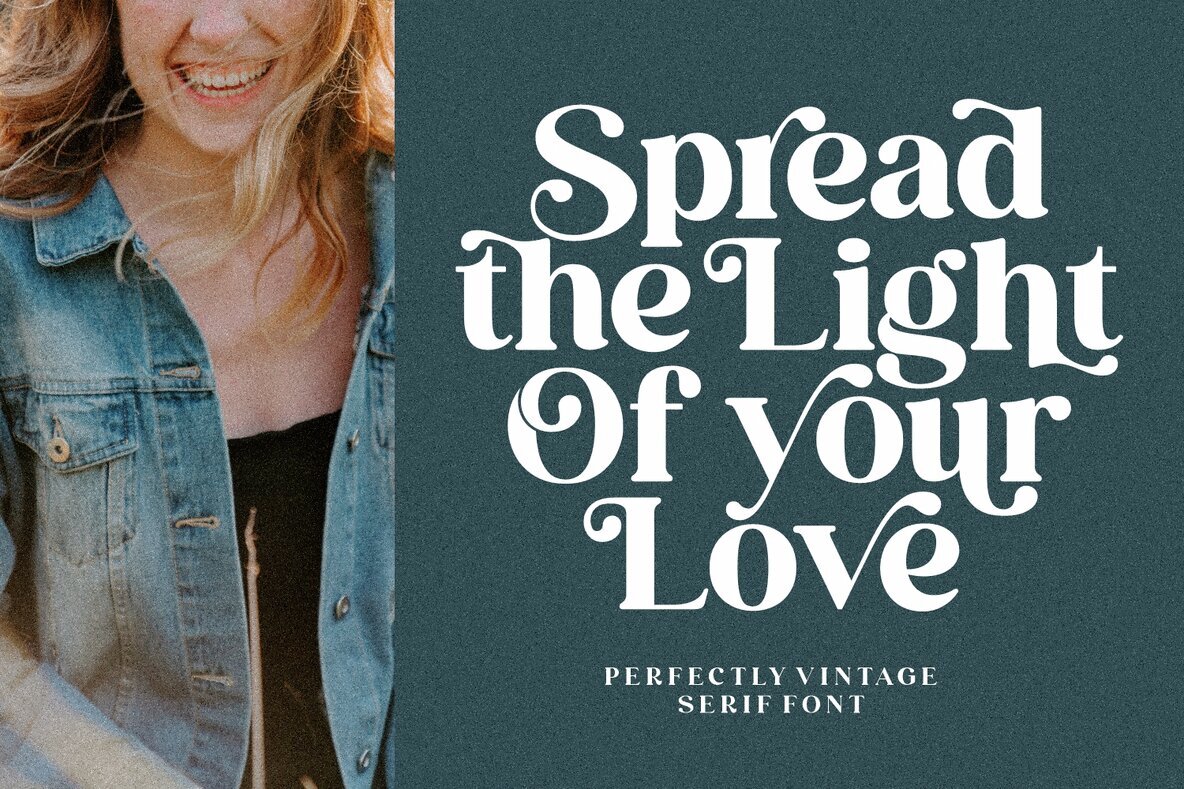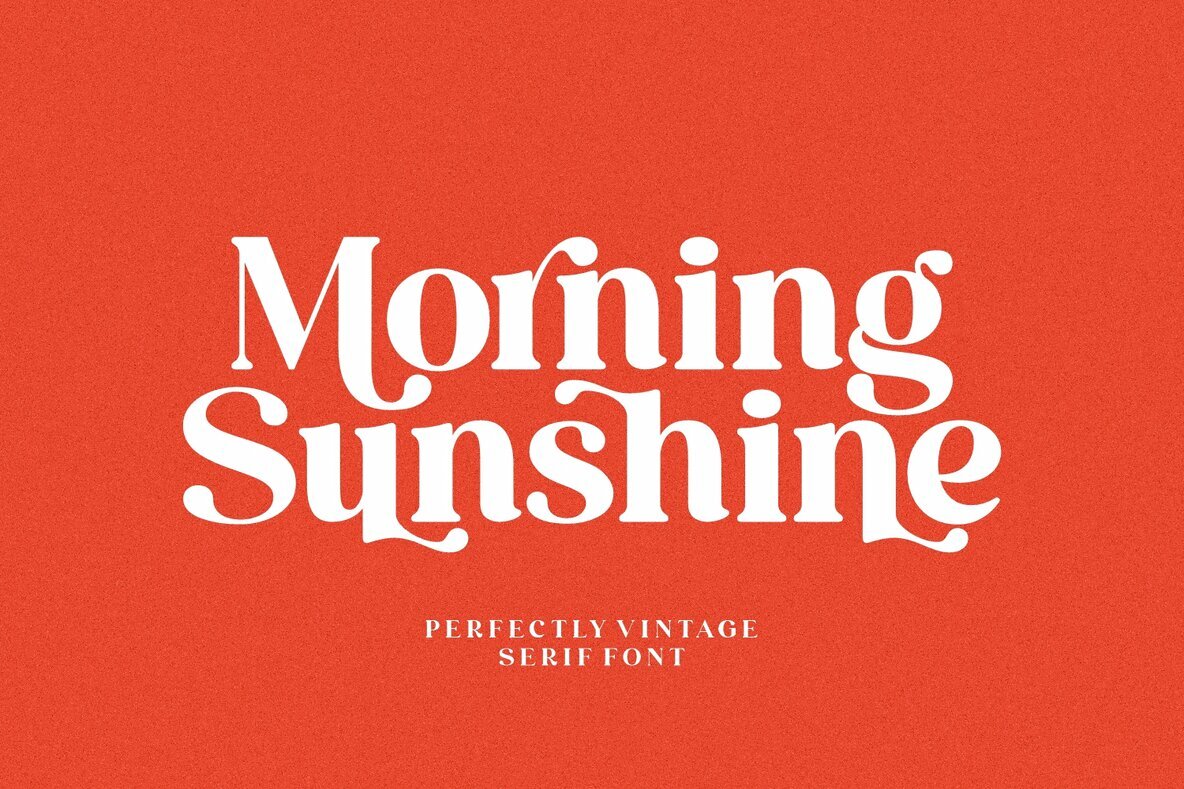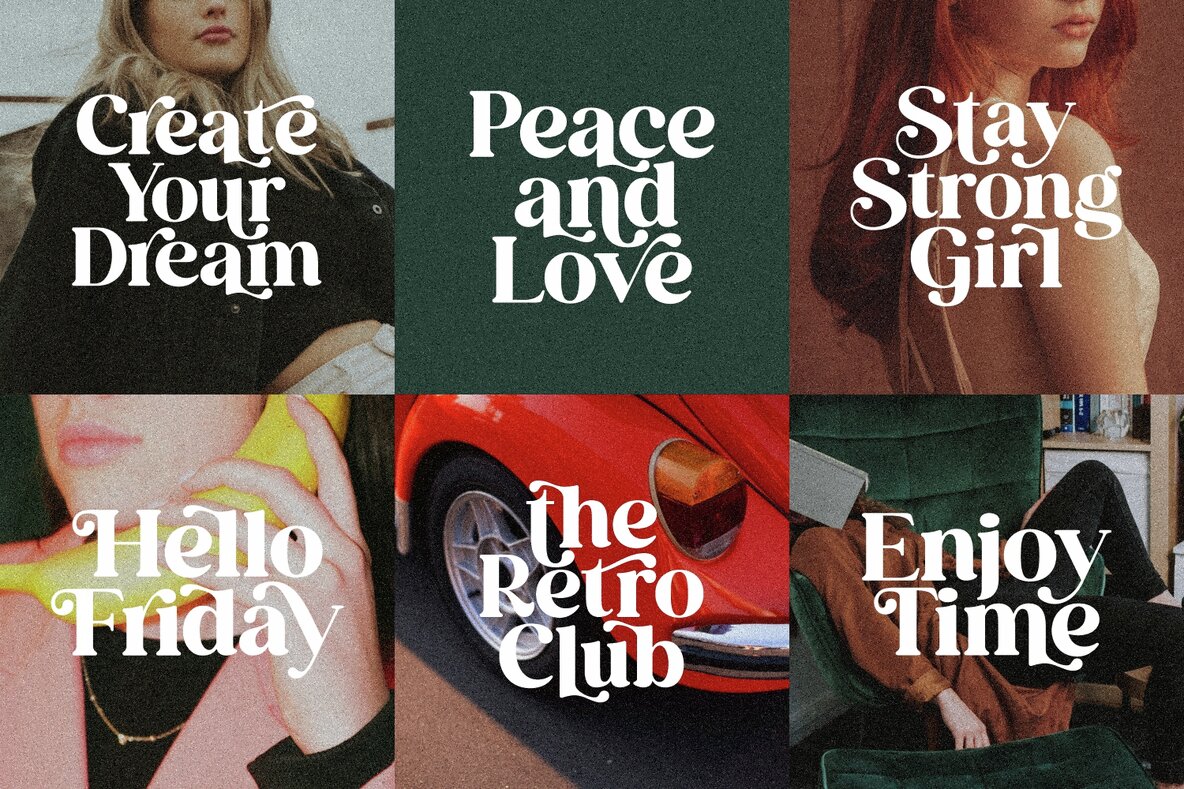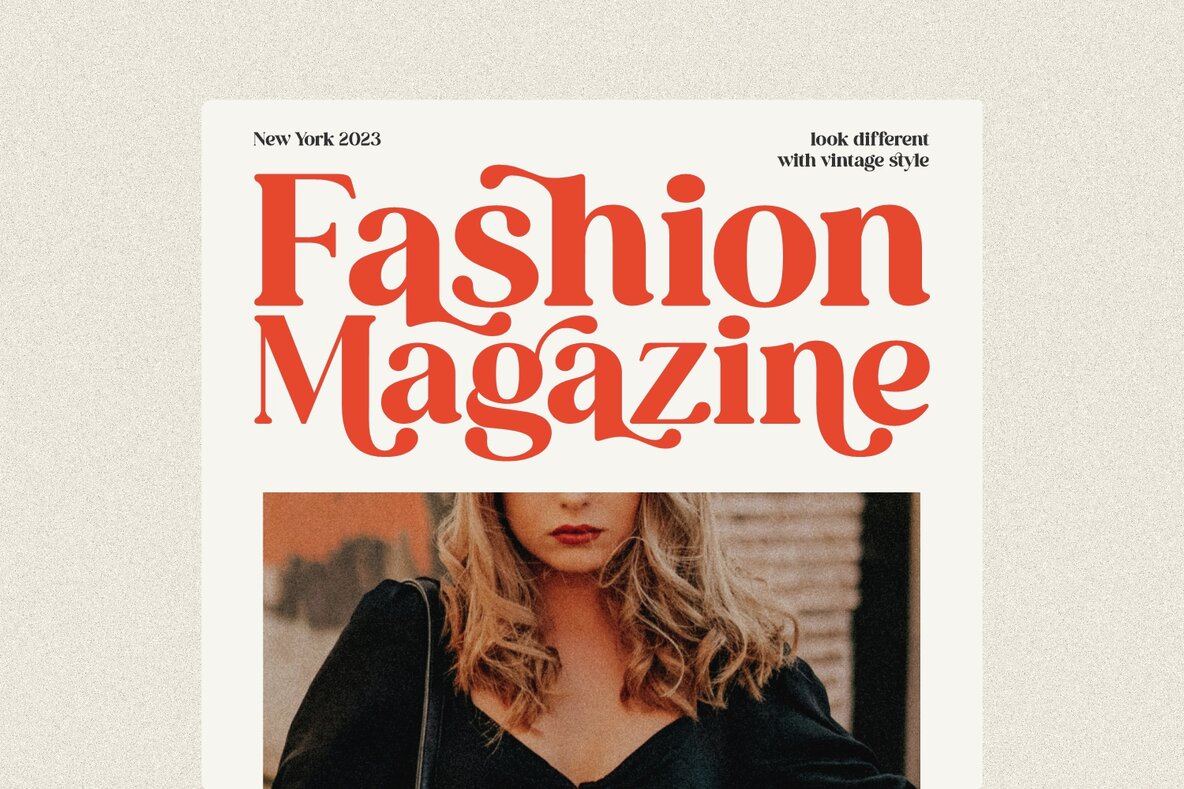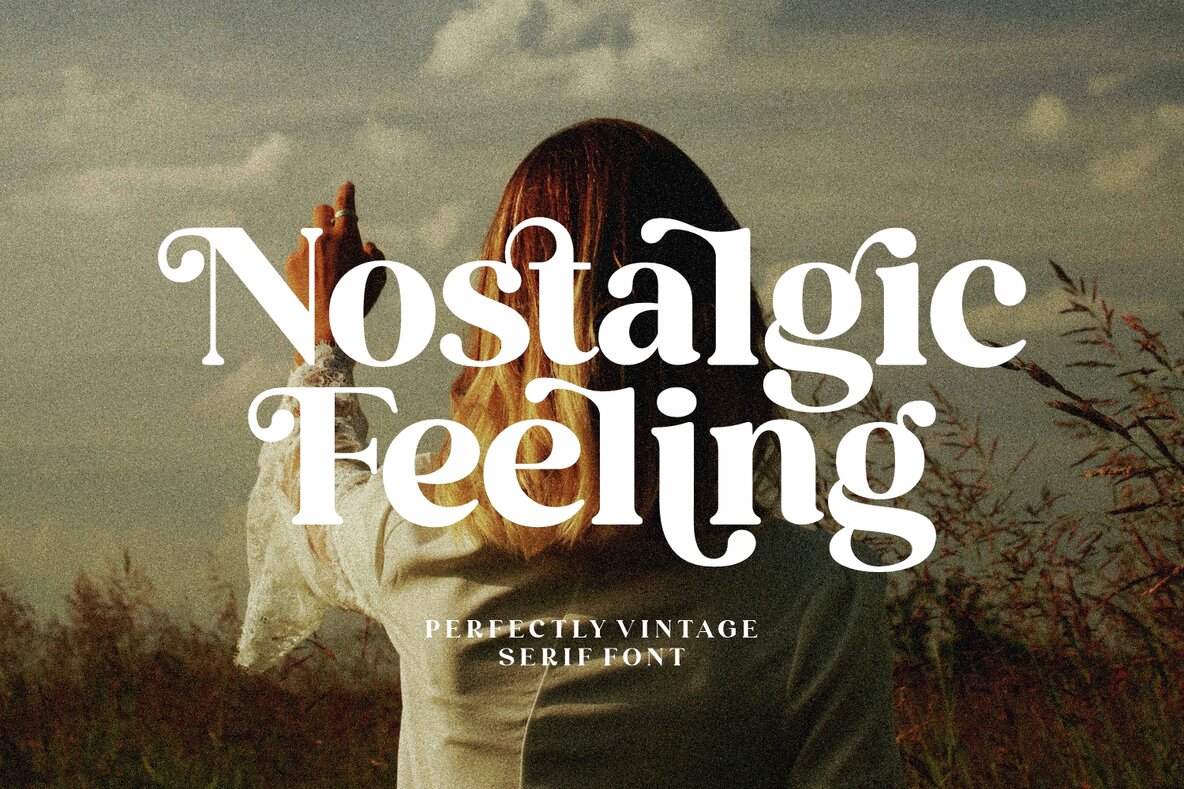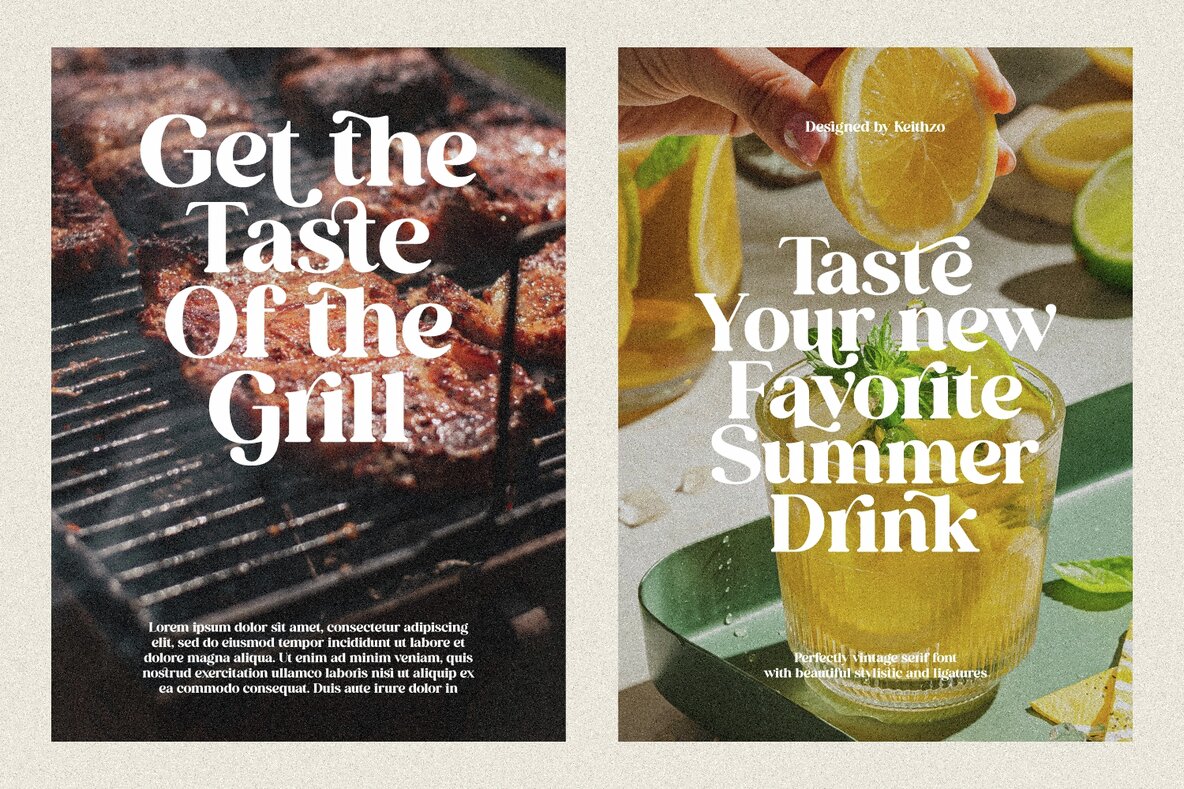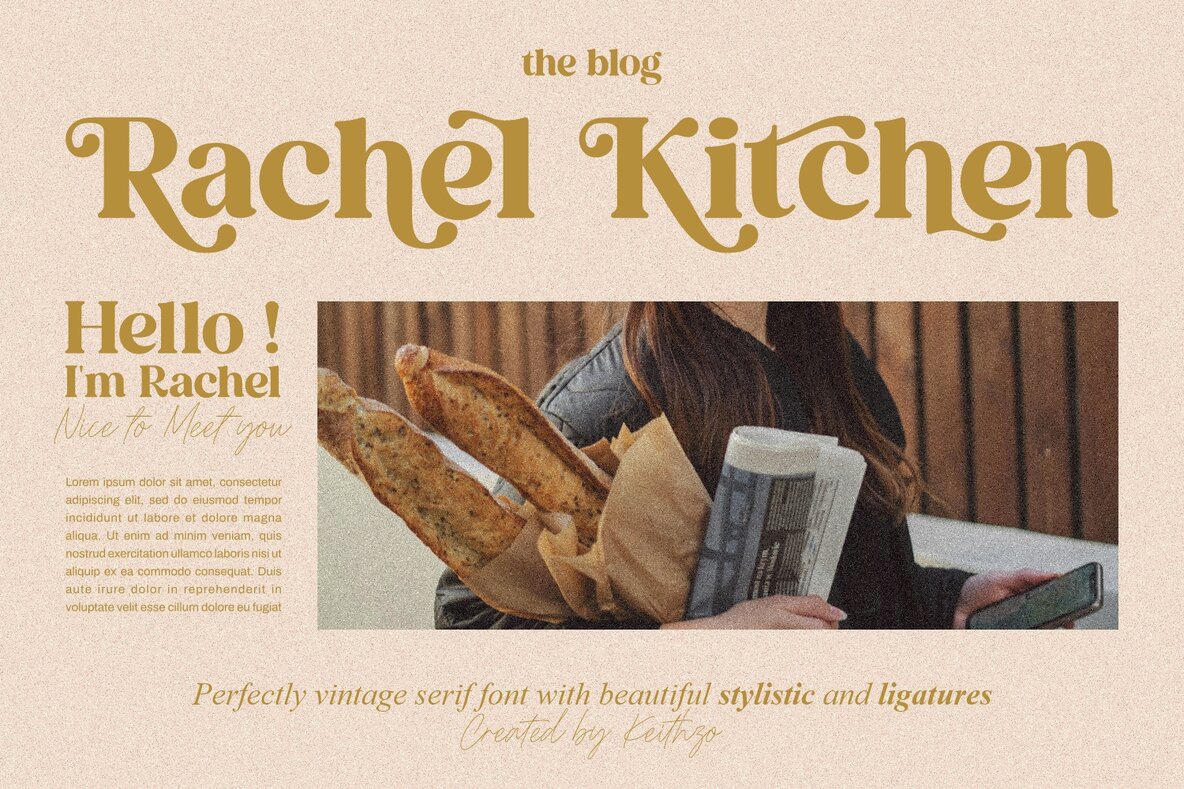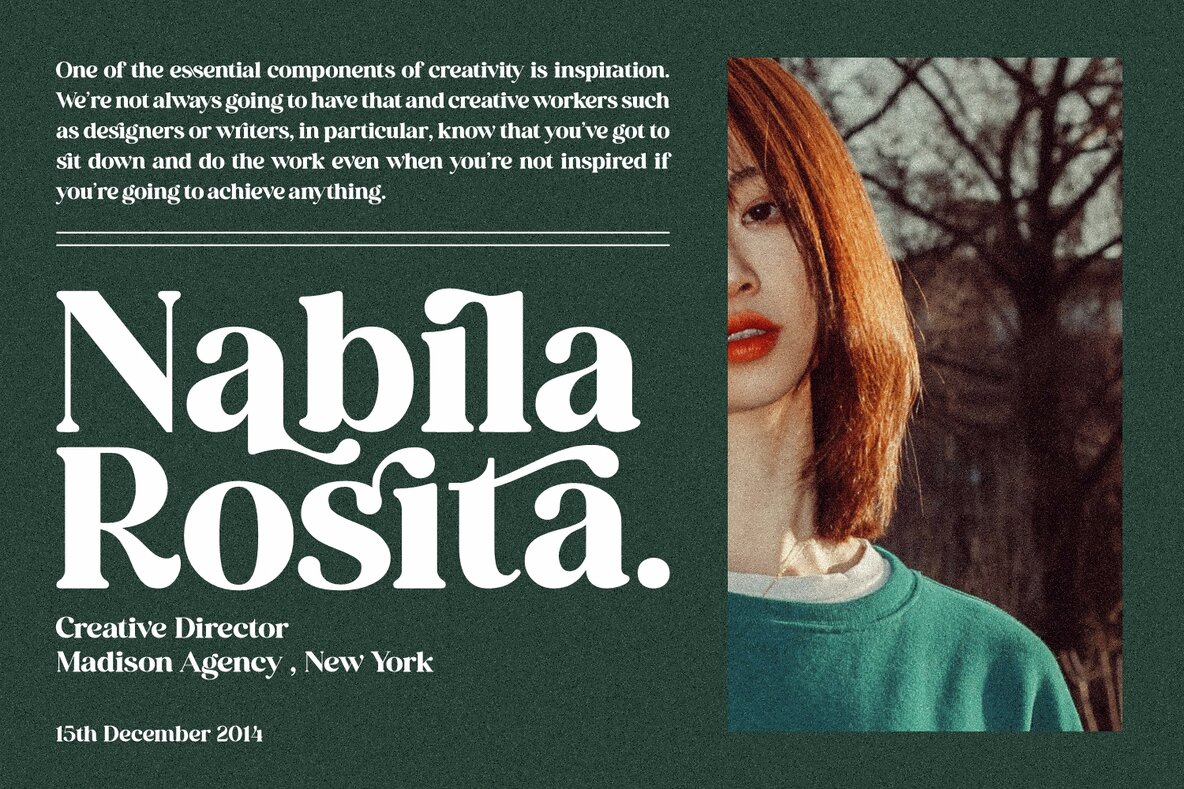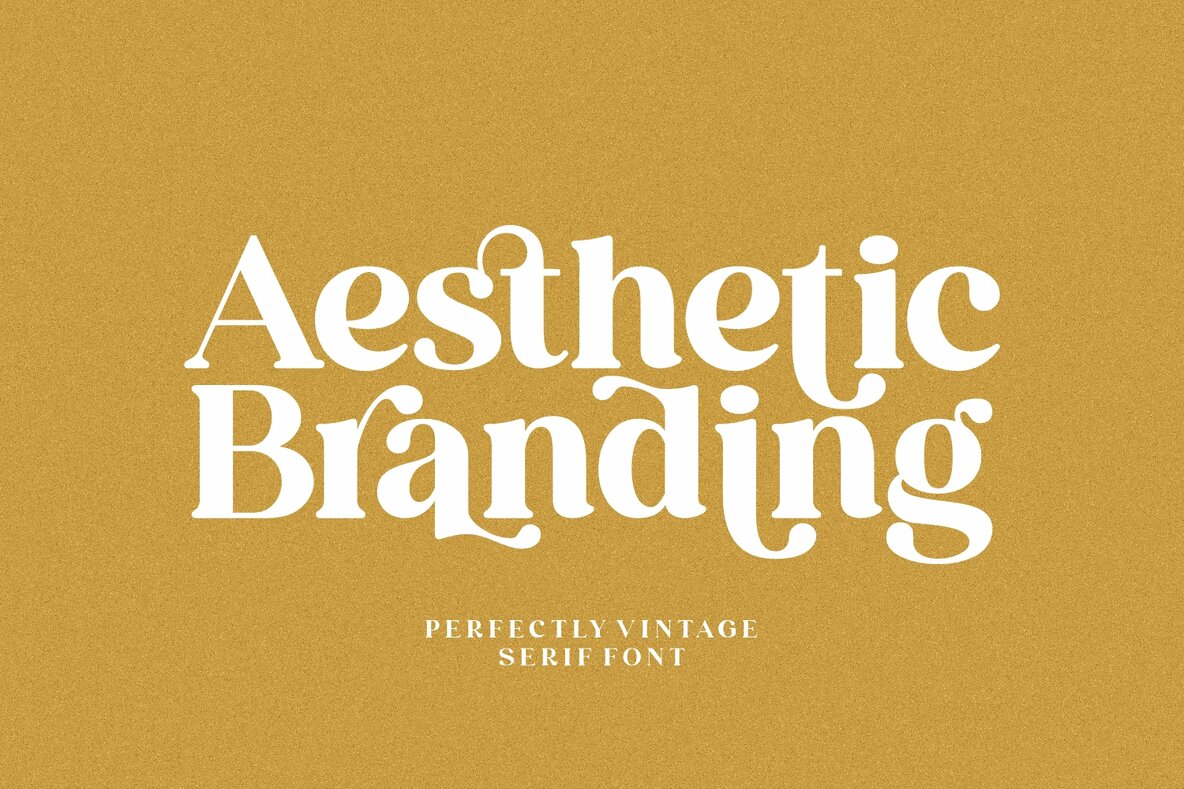
Perfectly Vintage Font
Perfectly Vintages
Introducing the vintage-inspired and exquisite Perfectly Vintages serif font! Its classic design features sturdy, bold serifs and distinctive letterforms that recall the golden age of typography. Perfect for retro branding, vintage packaging, and other nostalgic designs, Perfectly Vintages adds a touch of old-world charm to any project. This font is PUA encoded which means you can access all glyphs and swashes effortlessly!